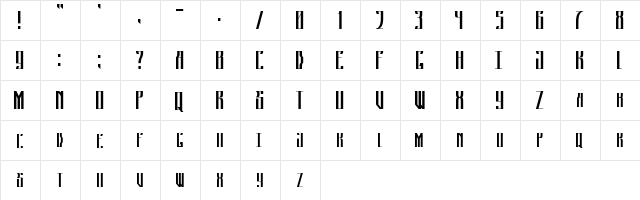
Johny Strocker Regular
| Foundry | Slava "Designvamp" Krivonosov |
| Designer | Slava "Designvamp" Krivonosov |
Design Context for Johny Strocker Typeface
Johny Strocker is a composed and adaptable typeface that performs quietly and consistently across a wide range of design contexts.